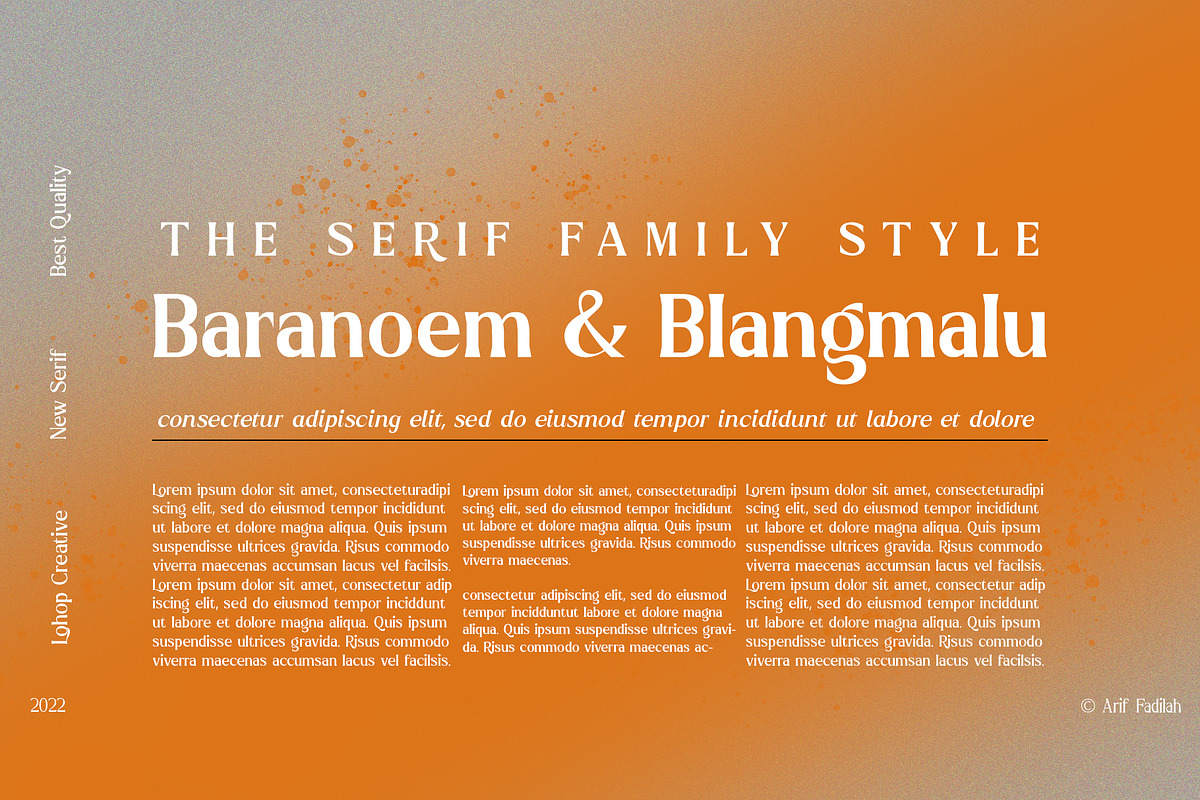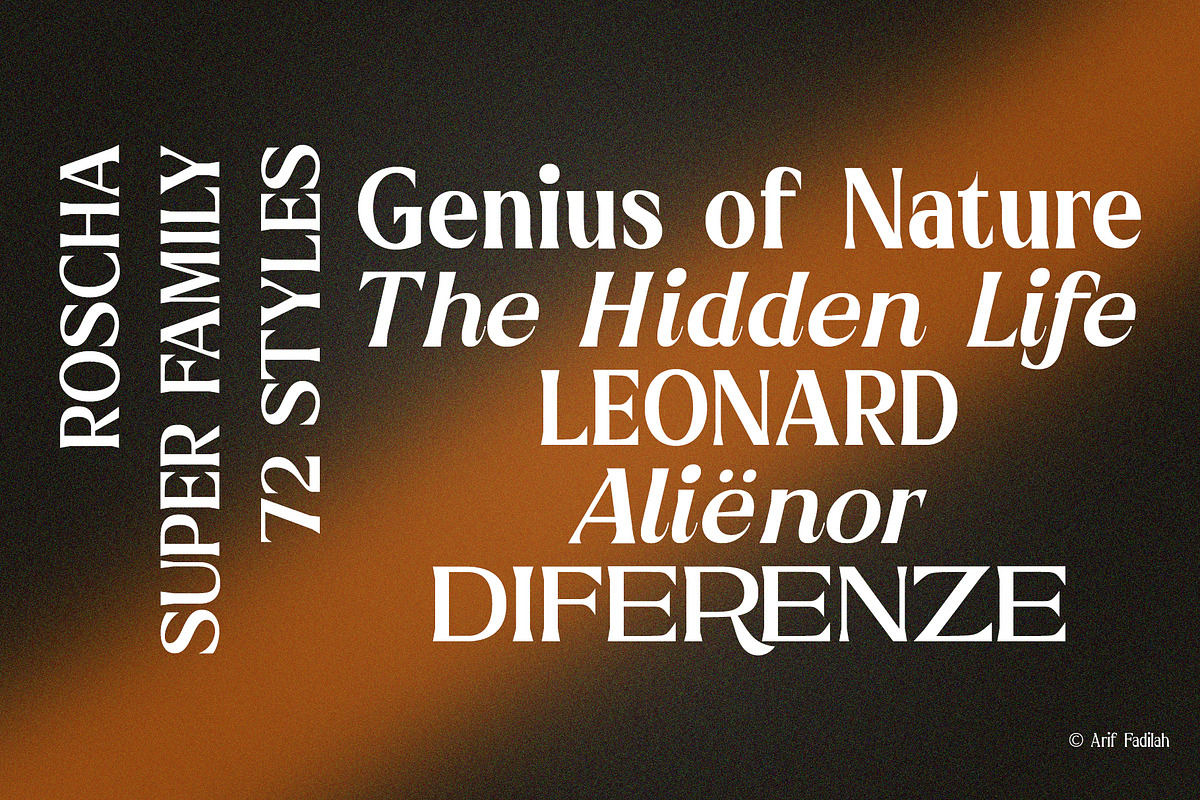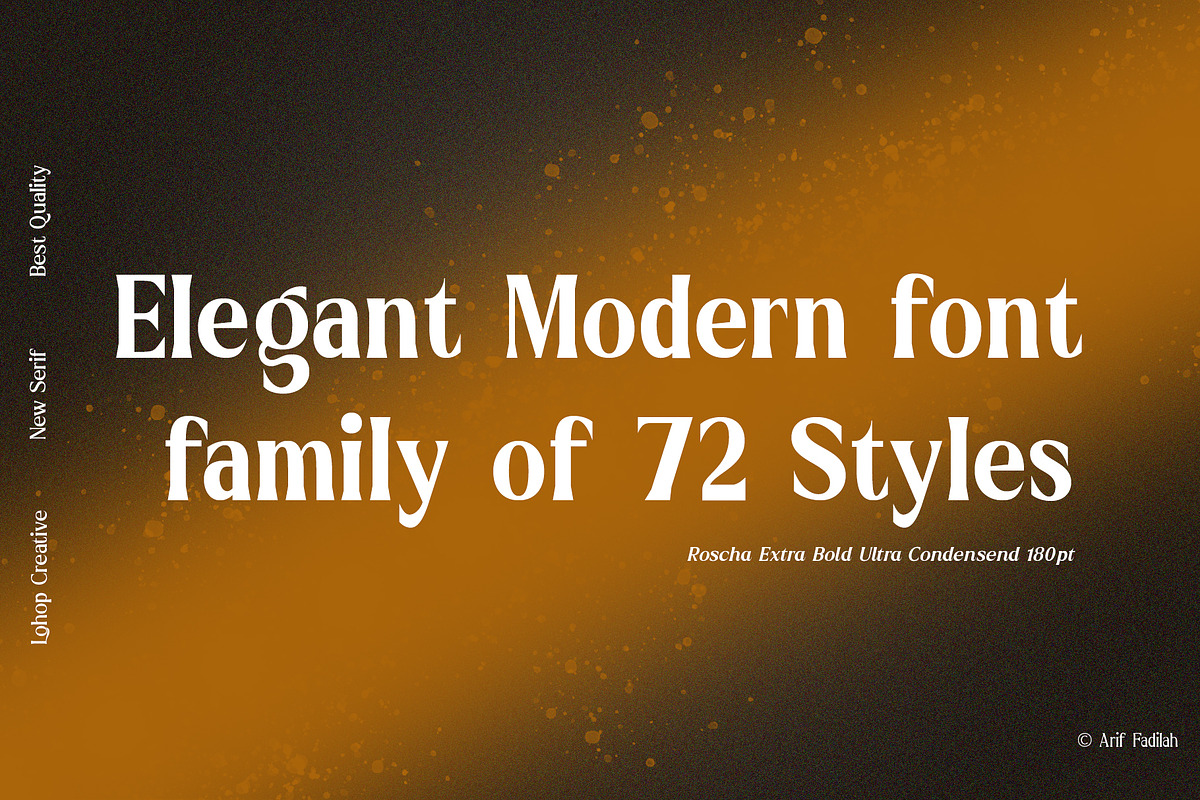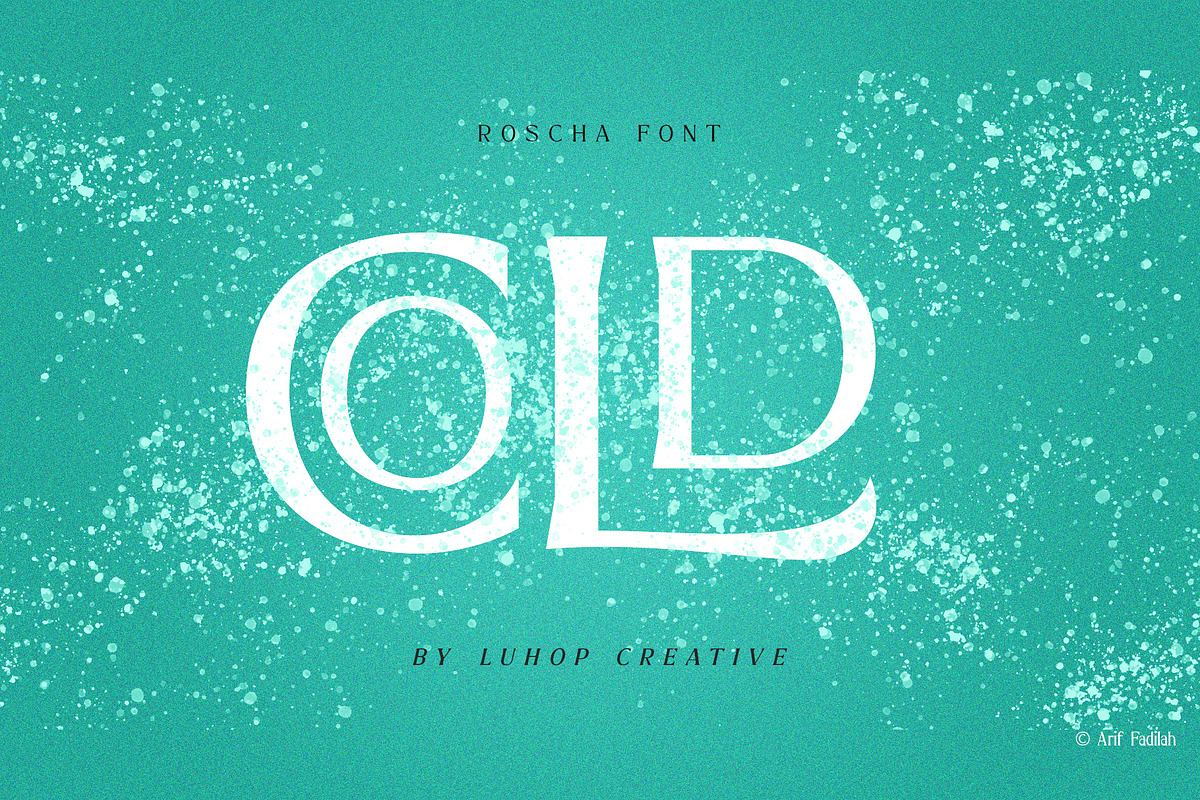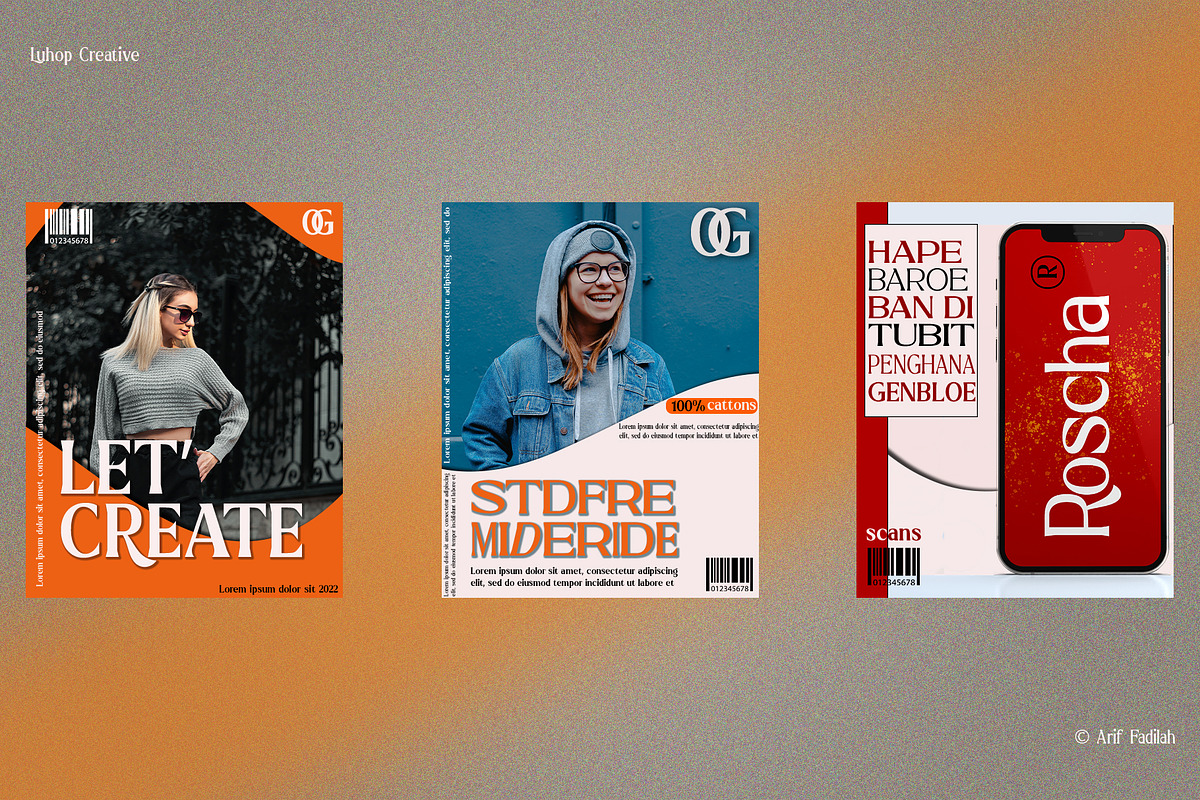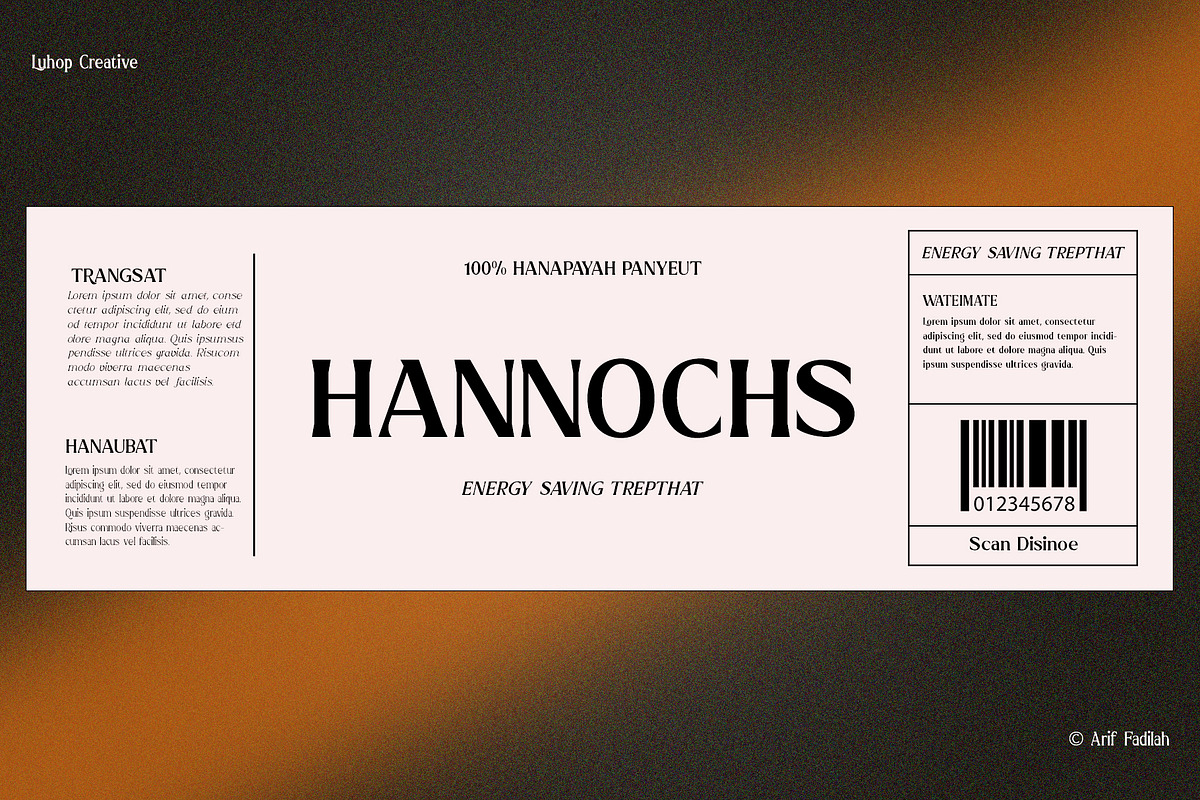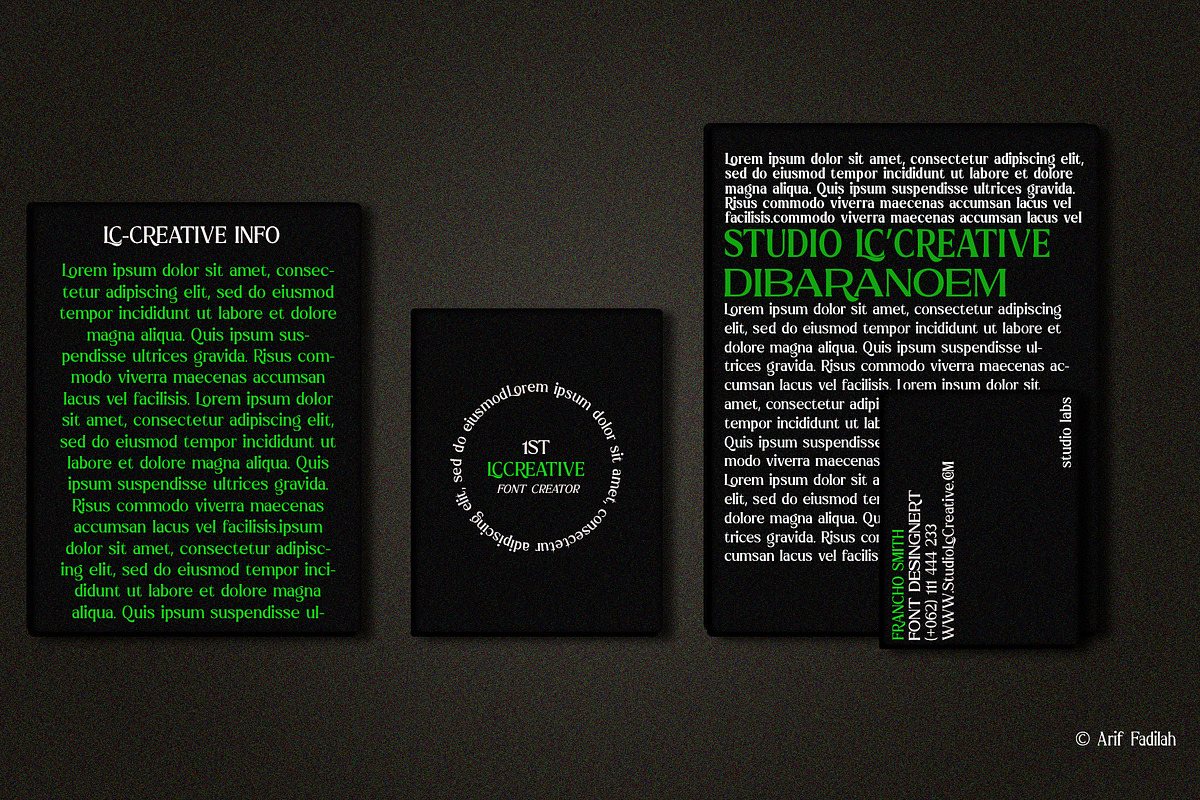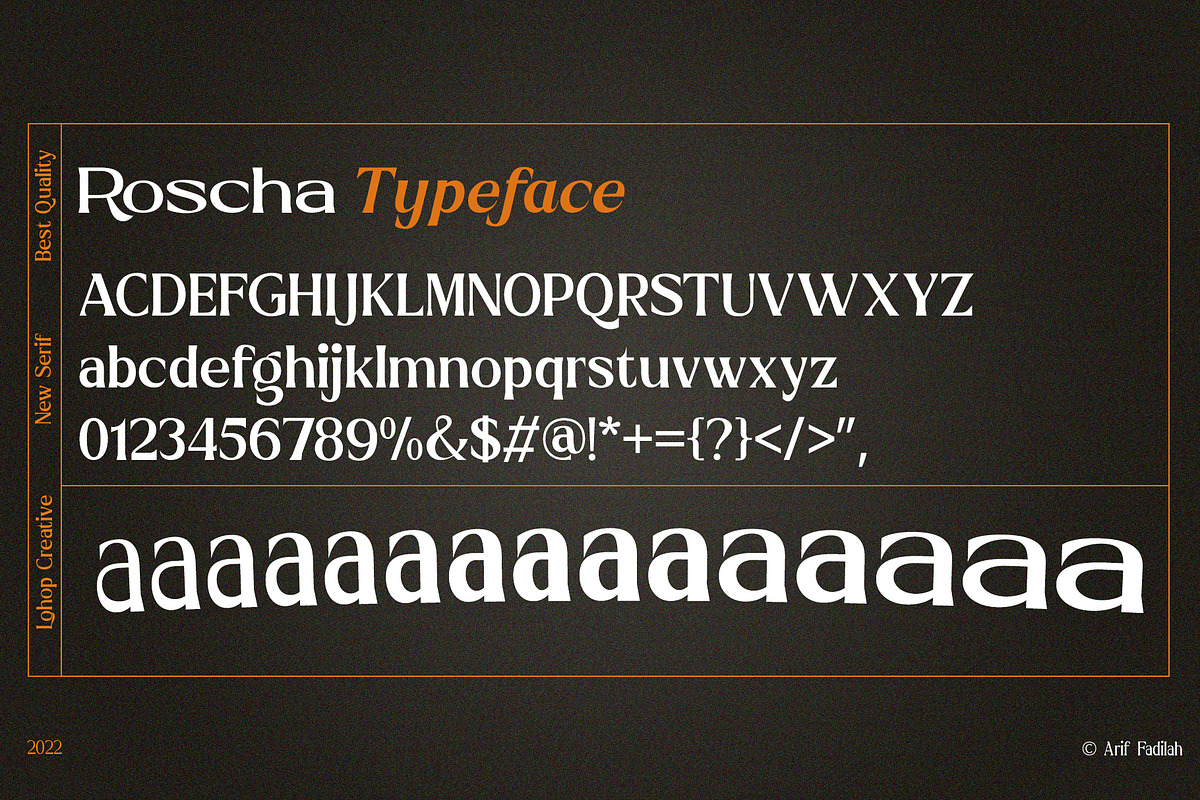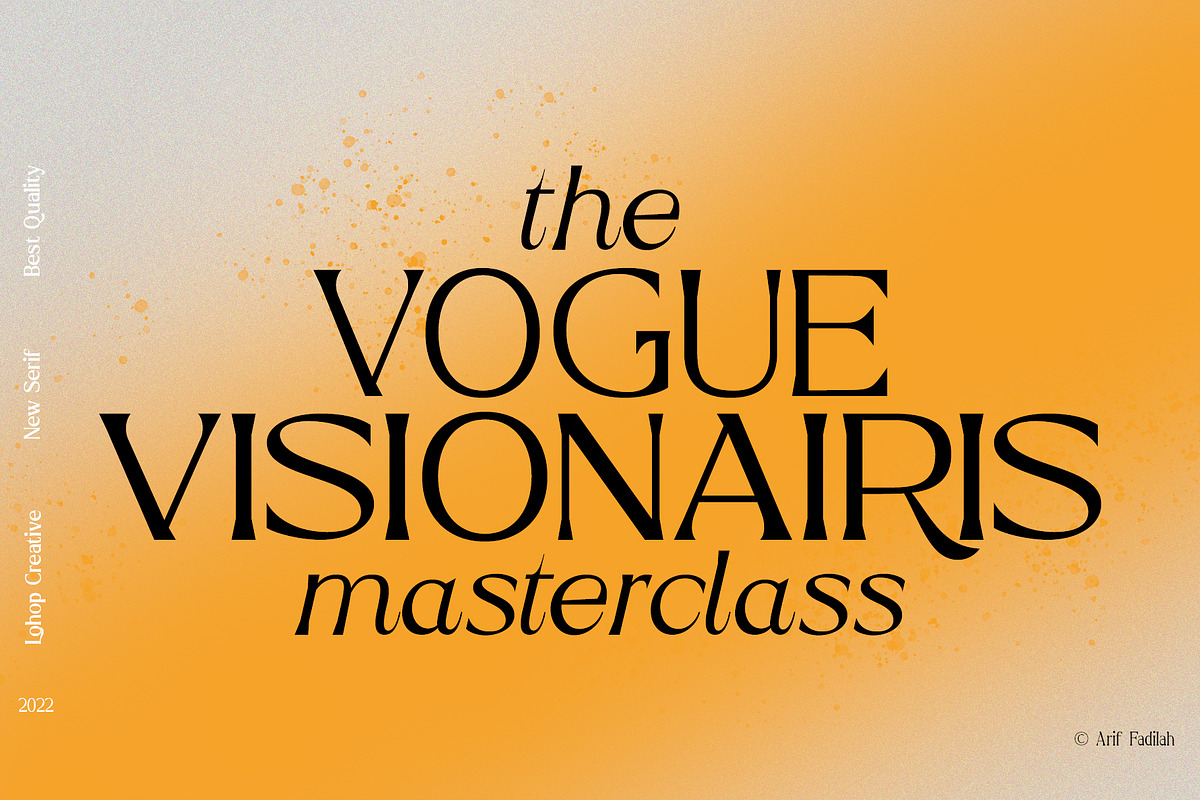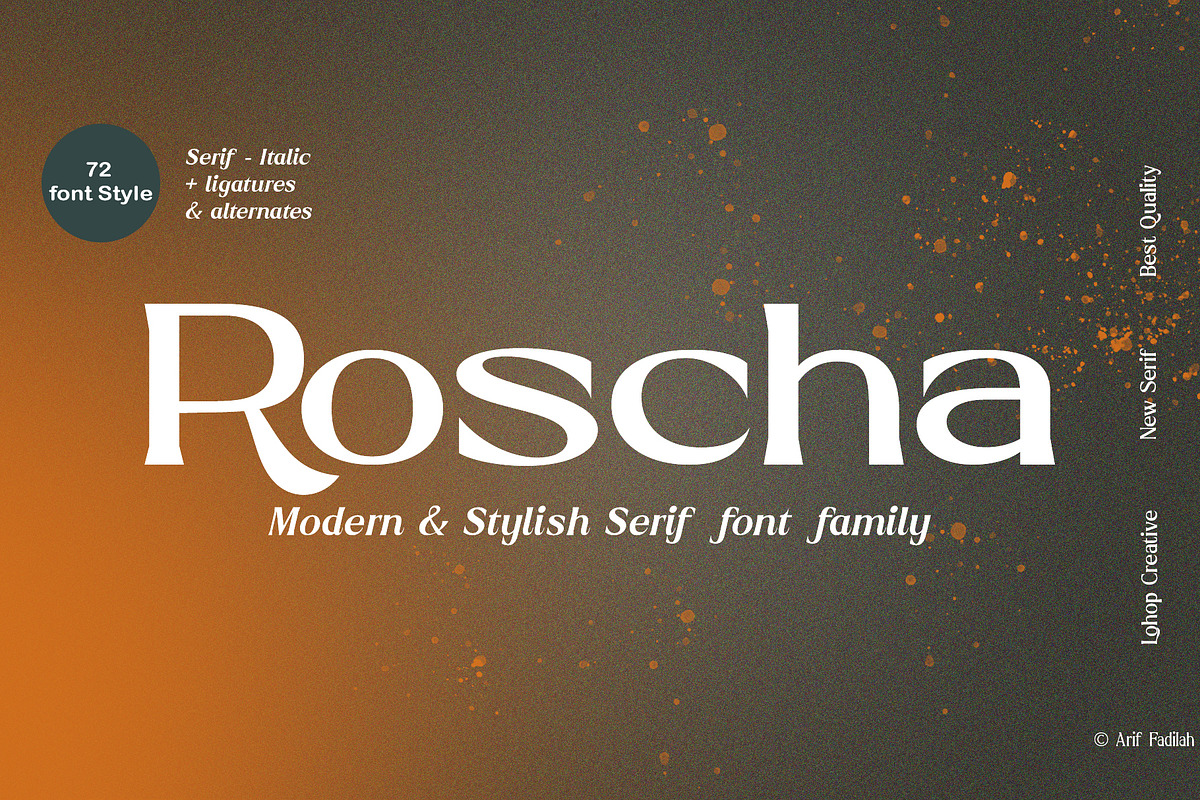
Roscha is a fully reconsidered high contrast transitional serif, which is perfectly adapted to modern realities and requirements. When starting this project, we wanted to try to draw a modern serif with the precisely verified shapes, high contrast and detailed elaboration of each character.
Roscha is perfect for use in magazines, in the fashion industry, in the branding of premium goods and services. Roscha is quite versatile and suitable for use both in headings and in text arrays. In addition, we have done manual hinting in the typeface, and now it can be used with a clear conscience in the web and applications.